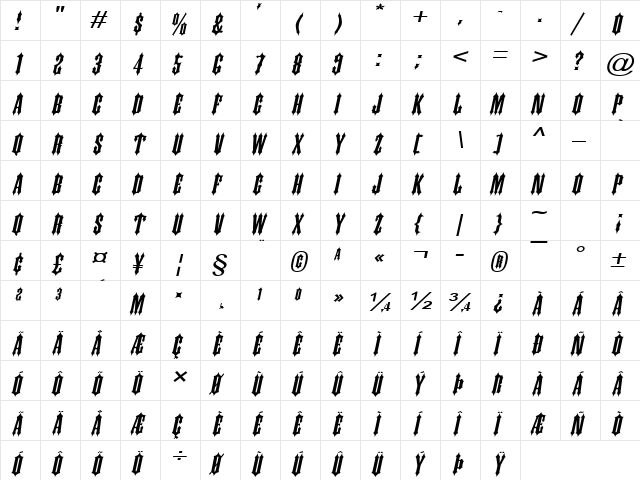
Ironwork Wide Italic
Design Context for Ironwork Wide Typeface
Ironwork Wide is a composed and adaptable typeface that performs quietly and consistently across a wide range of design contexts. The dynamic lean of this cut emphasises speed and emphasis in any layout.
Pro Tip: Try Ironwork Wide for annotation and caption copy alongside an upright companion — the contrast in angle creates a dynamic but ordered typographic system.